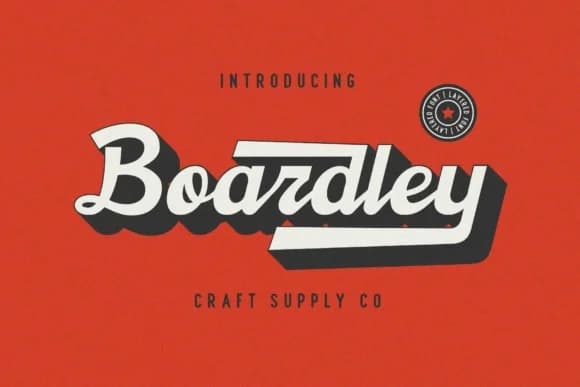
Boardley Script Font by craftsupplyco is a contemporary layered script that reimagines bold mid-century American and European advertising typography for modern creative work. This handcrafted typeface features a distinctive two-layer design approach that creates depth and visual richness, combining authentic hand-drawn character with reliable legibility across both digital and printed surfaces.
The font's hand-drawn quality makes it particularly well-suited for vintage-inspired branding materials, wedding invitation suites, and boutique packaging designs where personality and craftsmanship carry real weight. Whether you're developing personalized greeting card collections, designing retro-styled product labels, or creating hand-lettered book covers, Boardley Script delivers the distinctive visual language these projects demand. The layered structure adds dimensional interest that brings immediate energy to stationery design, logo work, business card suites, and artistic typography projects. Its versatility extends to modern envelope lettering and decorative poster applications, offering designers genuine flexibility across multiple disciplines and scales.
Boardley Script serves both creative professionals and DIY enthusiasts seeking authentic, vintage-influenced lettering without compromising contemporary sensibility. The typeface's structural integrity ensures strong performance in production environments while maintaining the handcrafted warmth that distinguishes premium design work from the ordinary. Find Boardley Script Font on Creative Fabrica and transform your next design project with its compelling vintage-modern aesthetic.
Boardley Script Font is a script font that shines as a display or heading face. Pair it with a clean sans-serif or serif font for body text β the contrast creates a clear hierarchy while the two styles stay balanced and easy to read.